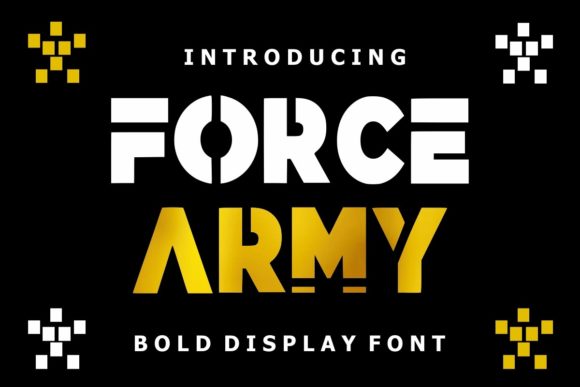
Carve an unparalleled digital presence with Force Army Font, an awe-inspiring display font that radiates power and strength. Unleash your creative genius with its dynamic effect and captivating charm, capturing attention across diverse platforms. Let your designs exude boldness, energy, and a dash of military-inspired flair.
Embrace the limitless possibilities of Force Army Font, the ultimate choice for crafting exceptional headlines, visually striking sporting event designs, and text effects that leave a lasting impression. Create Army posters that inspire and ignite passion, forge logos that command respect, and craft monogrammed designs that exude individuality.
Transport yourself to a world of creative freedom, where Force Army Font becomes your trusted companion. Let its bold strokes and unique character infuse your projects with a sense of urgency, capturing the imagination of your audience. From captivating social media campaigns to cutting-edge website designs, Force Army Font is your gateway to limitless creative expression.